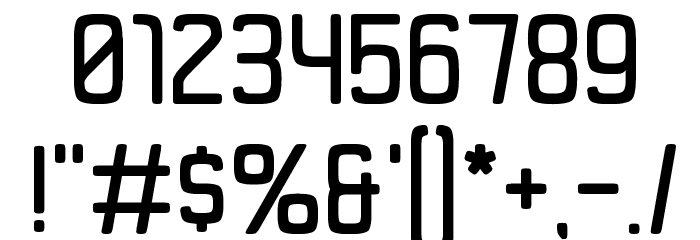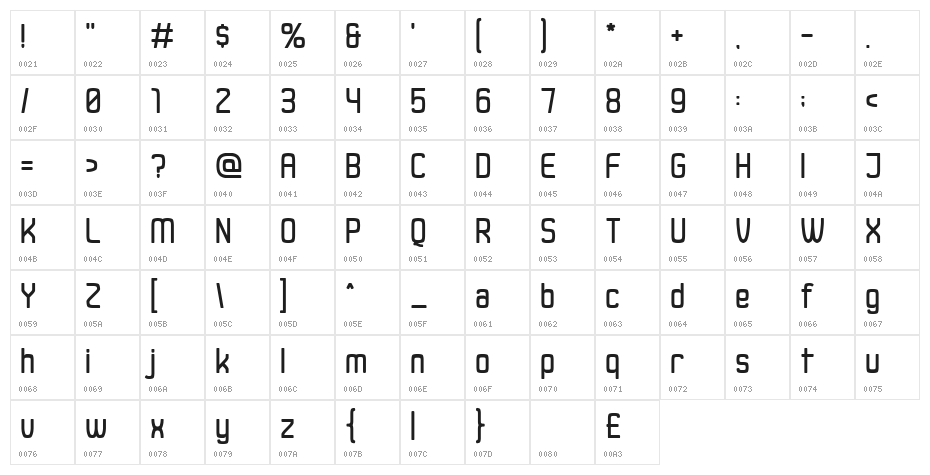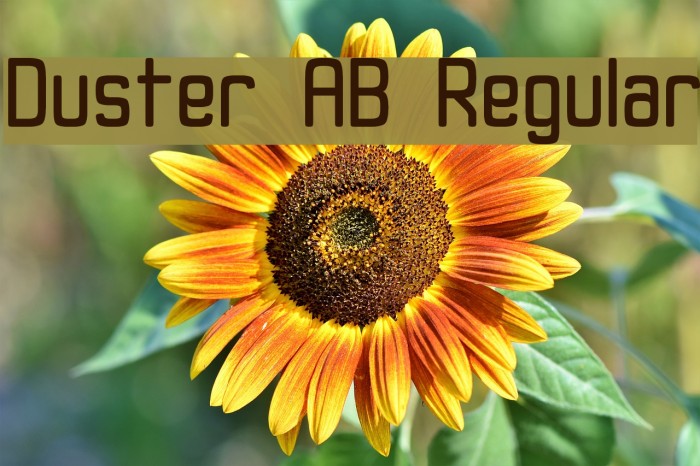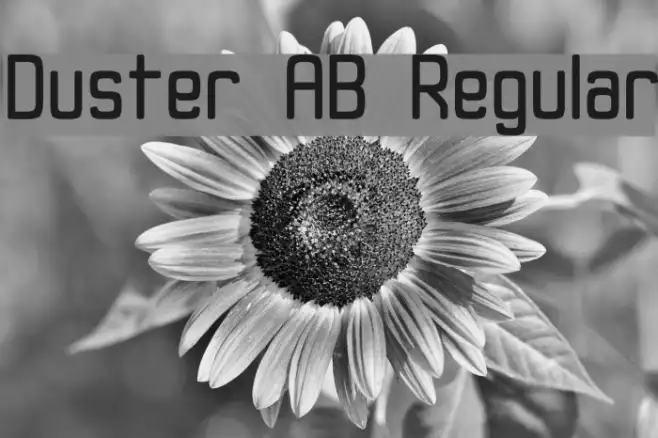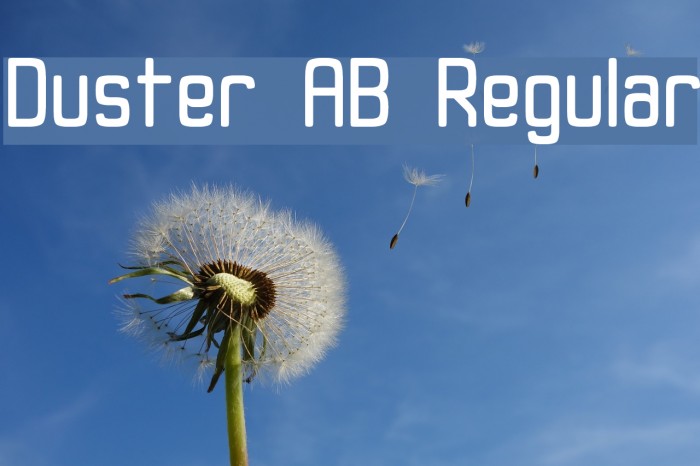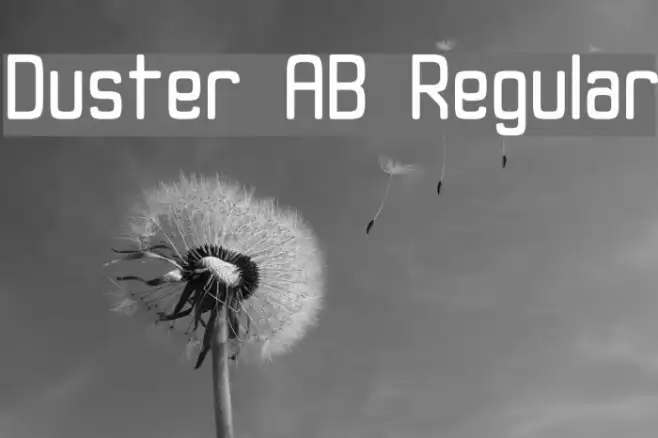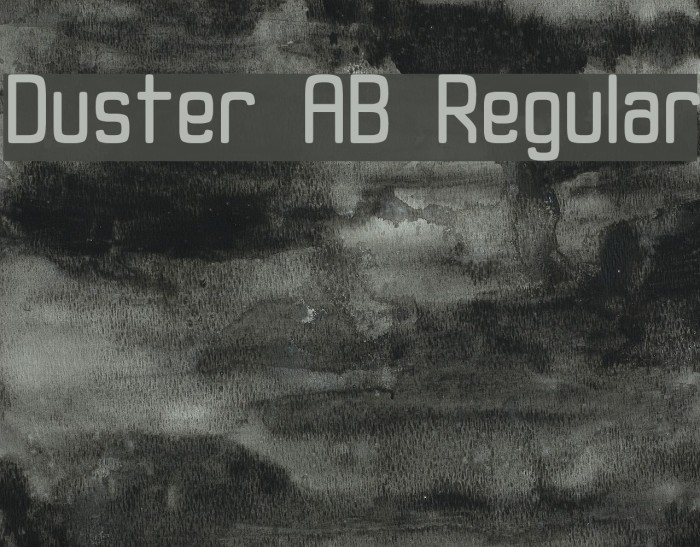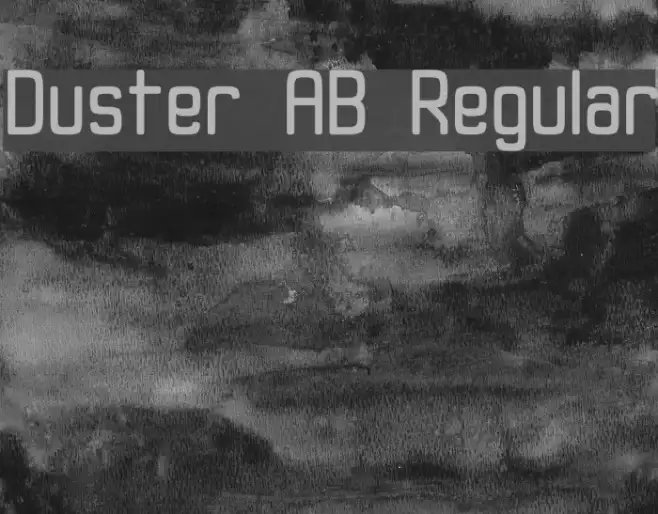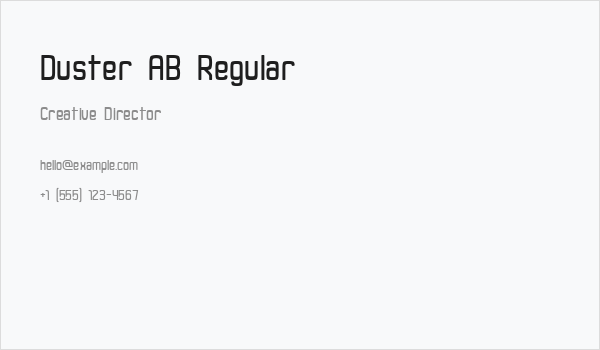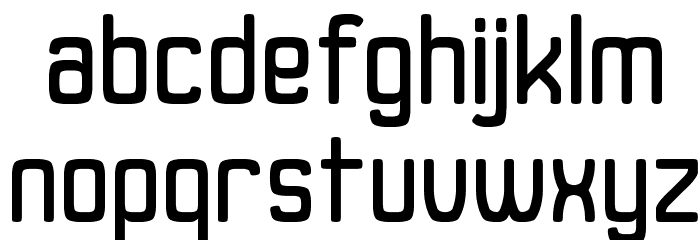
Duster AB Regular Font
Duster AB Regular Description
This font features a clean and modern design with rounded edges, giving it a friendly and approachable appearance. The characters are evenly spaced, providing a balanced and harmonious look. The uppercase and lowercase letters maintain a consistent style, with a uniform stroke width that enhances readability. The numerals are clear and distinct, making them suitable for various applications. Special characters are well-integrated, maintaining the overall aesthetic of the font. Its simplicity and clarity make it versatile for both digital and print media.